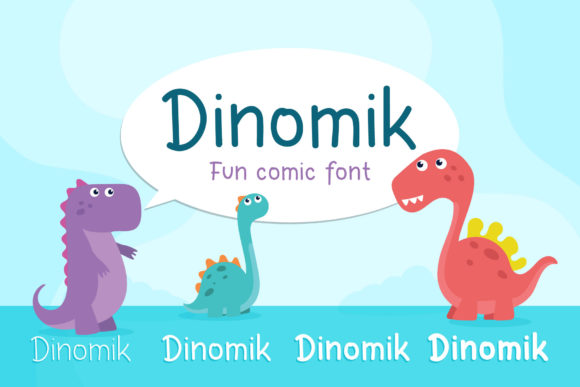
Introducing Dinomik Font: The Fun and Cheerful Sans Serif Font for Your Creative Designs
Are you tired of using the same old fonts in your designs? Do you want to add a touch of fun and playfulness to your creative projects? Look no further than Dinomik Font! This delightful sans serif font is sure to bring a smile to your face and a super cute touch to any design you have.
What is Dinomik Font?
Dinomik Font is a fun and cheerful sans serif font that is perfect for designers and crafters who want to add a playful twist to their designs. With its clean and simple lines, Dinomik Font is easy to read and versatile enough to use in a variety of design projects.
Variations of Dinomik Font
One of the best things about Dinomik Font is that it comes in four variations, giving you plenty of options to choose from. Whether you want a bold and statement-making font or a more subtle and understated one, Dinomik Font has got you covered. The four variations of Dinomik Font include:
- Dinomik Regular: The regular version of Dinomik Font is perfect for everyday designs and projects.
- Dinomik Bold: The bold version of Dinomik Font is great for making statements and adding emphasis to your designs.
- Dinomik Italic: The italic version of Dinomik Font adds a touch of elegance and sophistication to your designs.
- Dinomik Bold Italic: The bold italic version of Dinomik Font is perfect for adding a bold and playful touch to your designs.
Features of Dinomik Font
Dinomik Font has several features that make it a great choice for designers and crafters. Some of its key features include:
- Clean and Simple Lines: Dinomik Font has clean and simple lines that make it easy to read and versatile enough to use in a variety of design projects.
- Fun and Cheerful: Dinomik Font is a fun and cheerful font that is sure to add a playful touch to any design.
- Four Variations: Dinomik Font comes in four variations, giving you plenty of options to choose from.
Uses of Dinomik Font
Dinomik Font is a versatile font that can be used in a variety of design projects. Some of the ways you can use Dinomik Font include:
- Graphic Design: Dinomik Font is perfect for graphic design projects such as brochures, flyers, and posters.
- Digital Design: Dinomik Font can be used in digital design projects such as websites, social media graphics, and email marketing campaigns.
- Crafting: Dinomik Font is great for crafters who want to add a personal touch to their projects.
- DIY Projects: Dinomik Font can be used in DIY projects such as signs, banners, and other decorative items.
Tips for Using Dinomik Font
Here are some tips for using Dinomik Font in your designs:
- Use it for Headings: Dinomik Font is perfect for headings and titles, as it adds a fun and playful touch to your designs.
- Pair it with Other Fonts: Dinomik Font can be paired with other fonts to create a unique and interesting look.
- Experiment with Colors: Dinomik Font looks great in a variety of colors, so don’t be afraid to experiment and find the perfect color for your design.
In conclusion, Dinomik Font is a fun and cheerful sans serif font that is perfect for designers and crafters who want to add a playful twist to their designs. With its clean and simple lines, four variations, and versatility, Dinomik Font is a great choice for a variety of design projects. So why not give Dinomik Font a try and see how it can add a super cute touch to your designs?